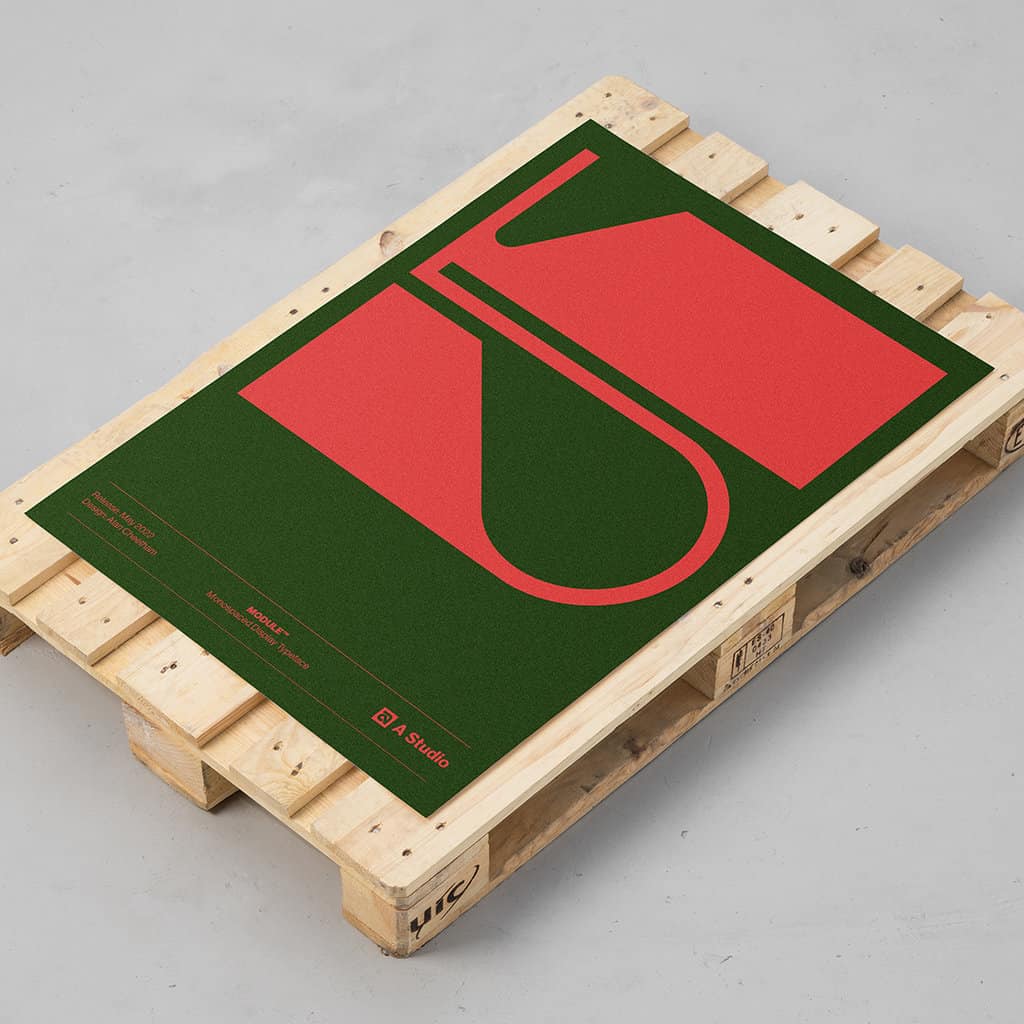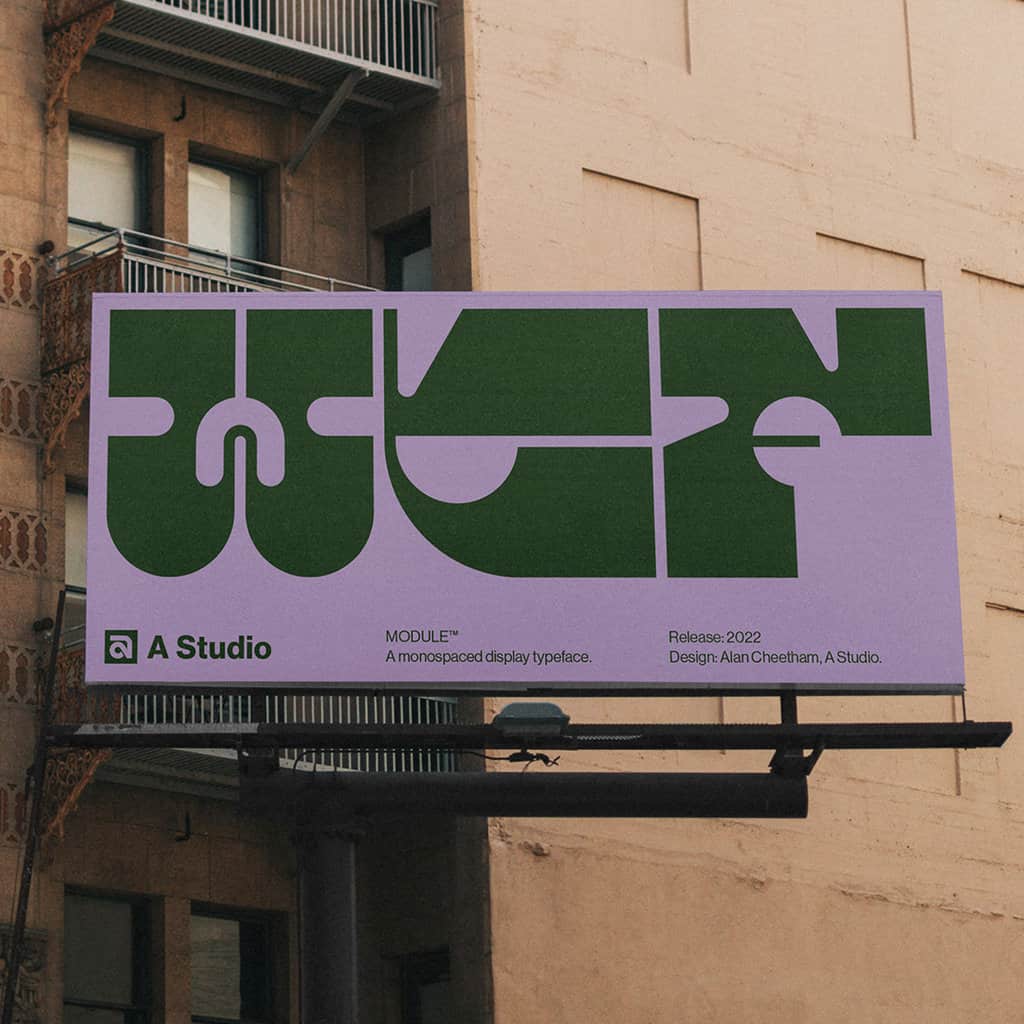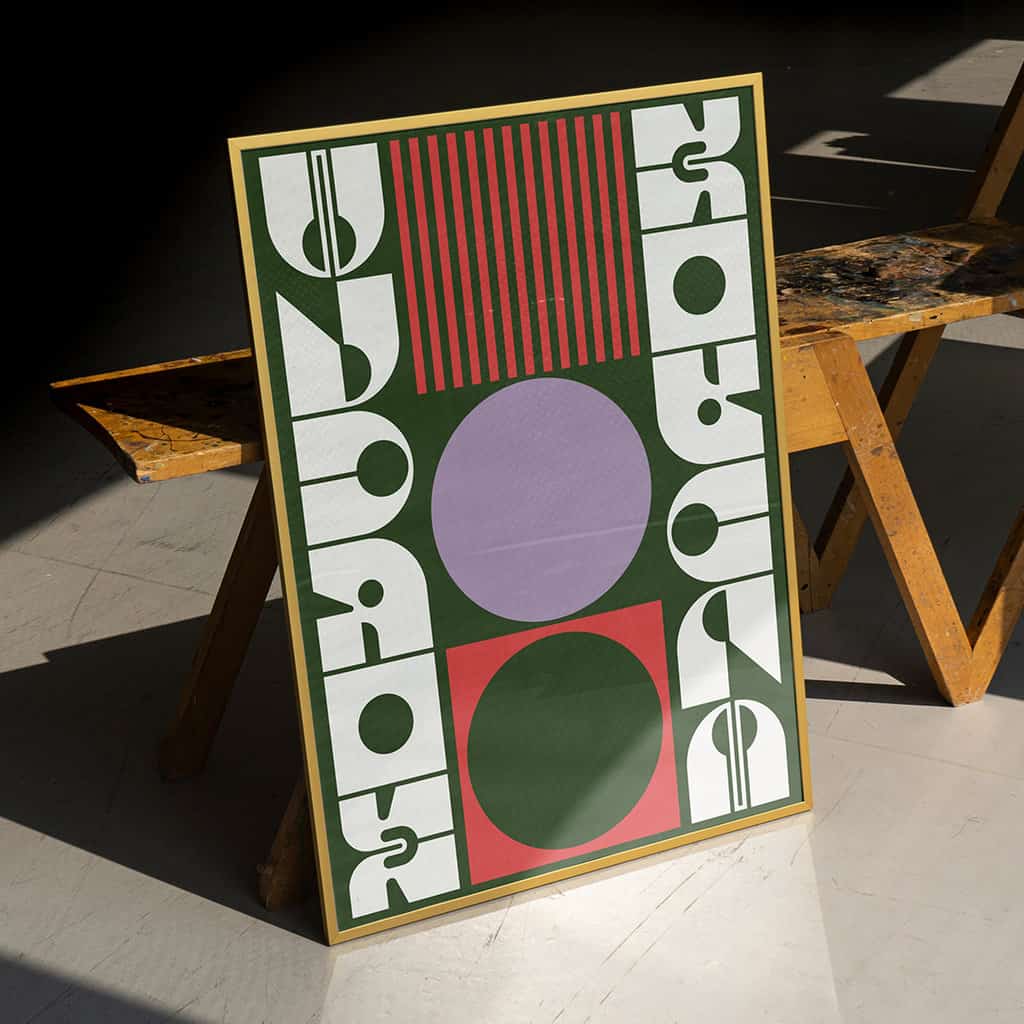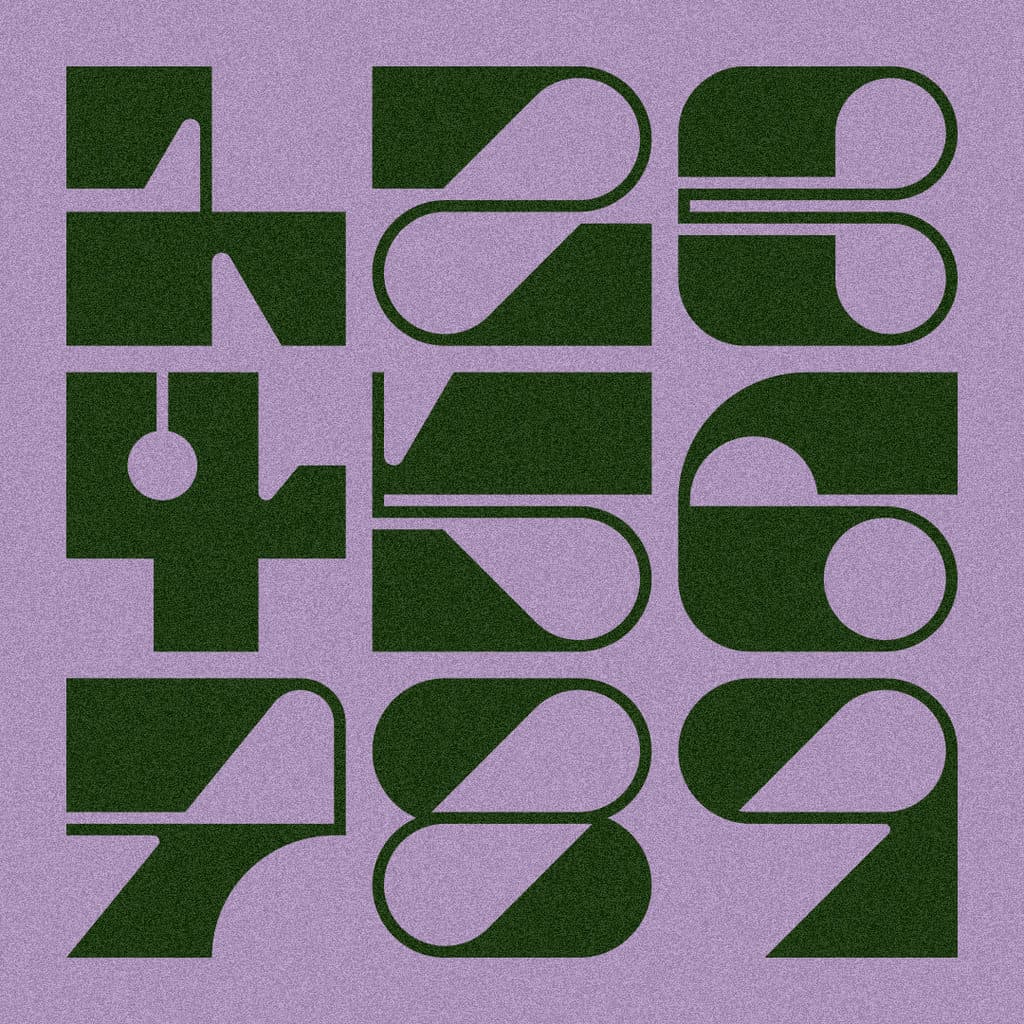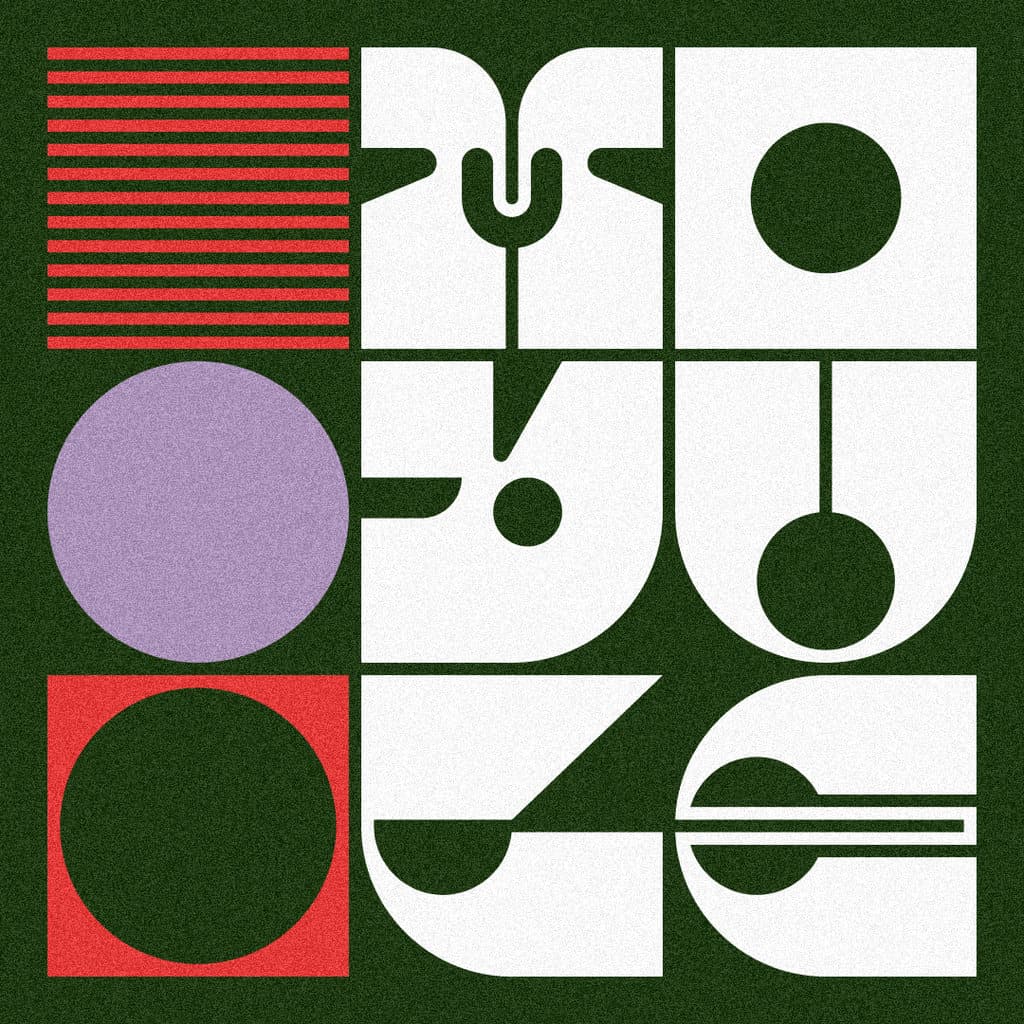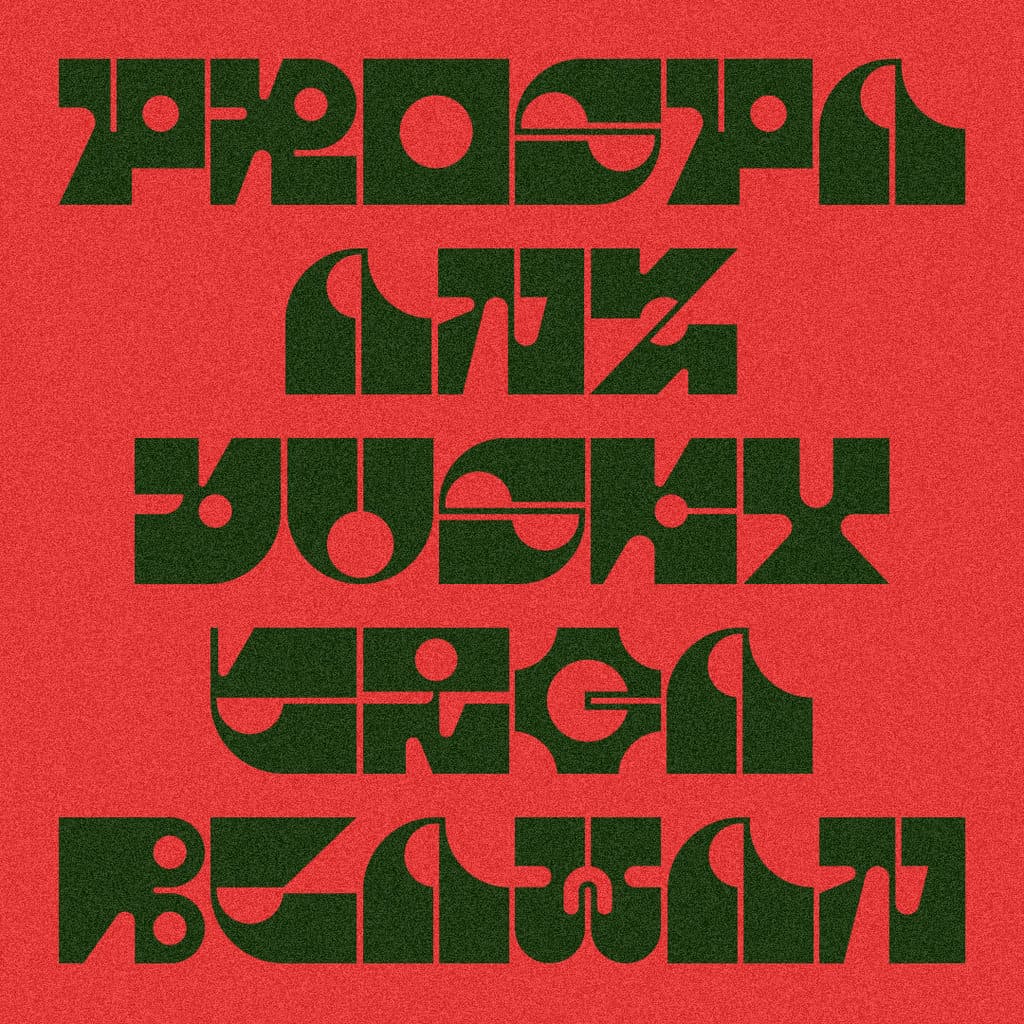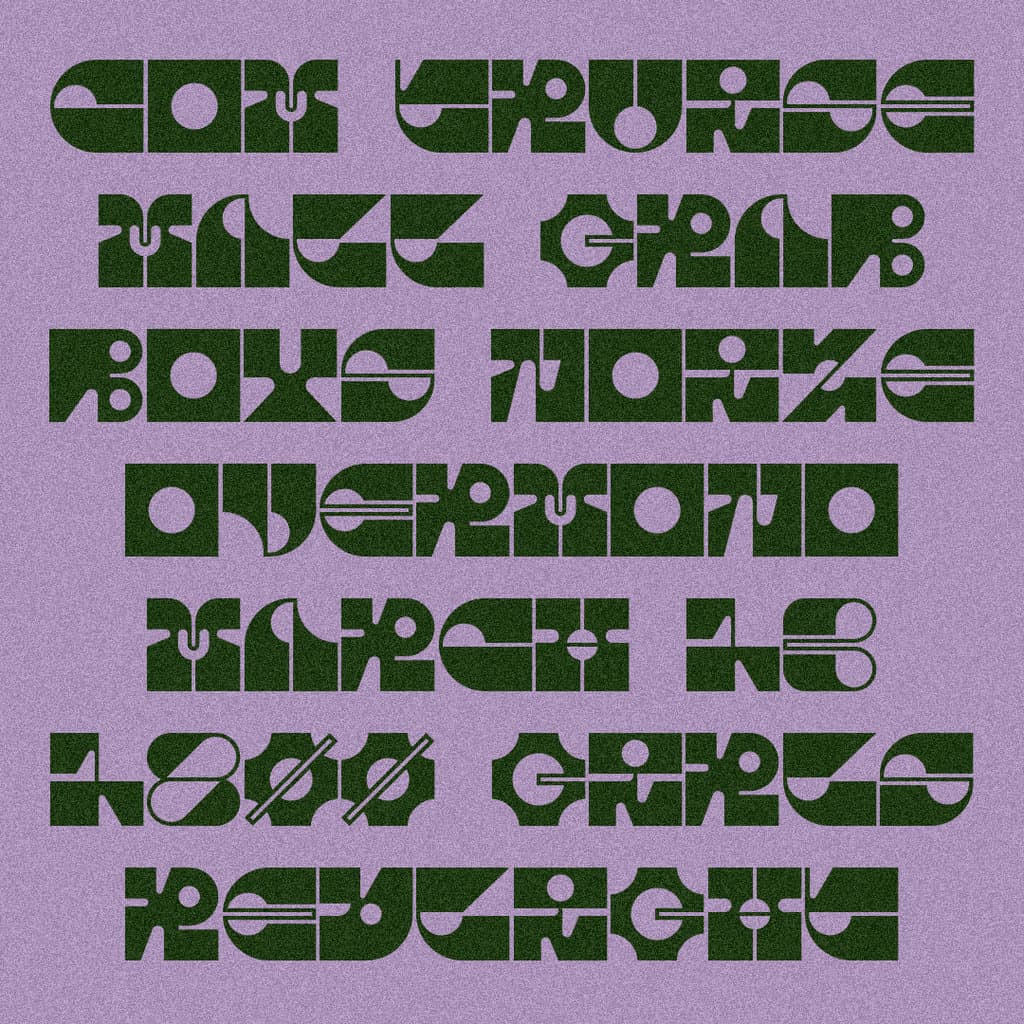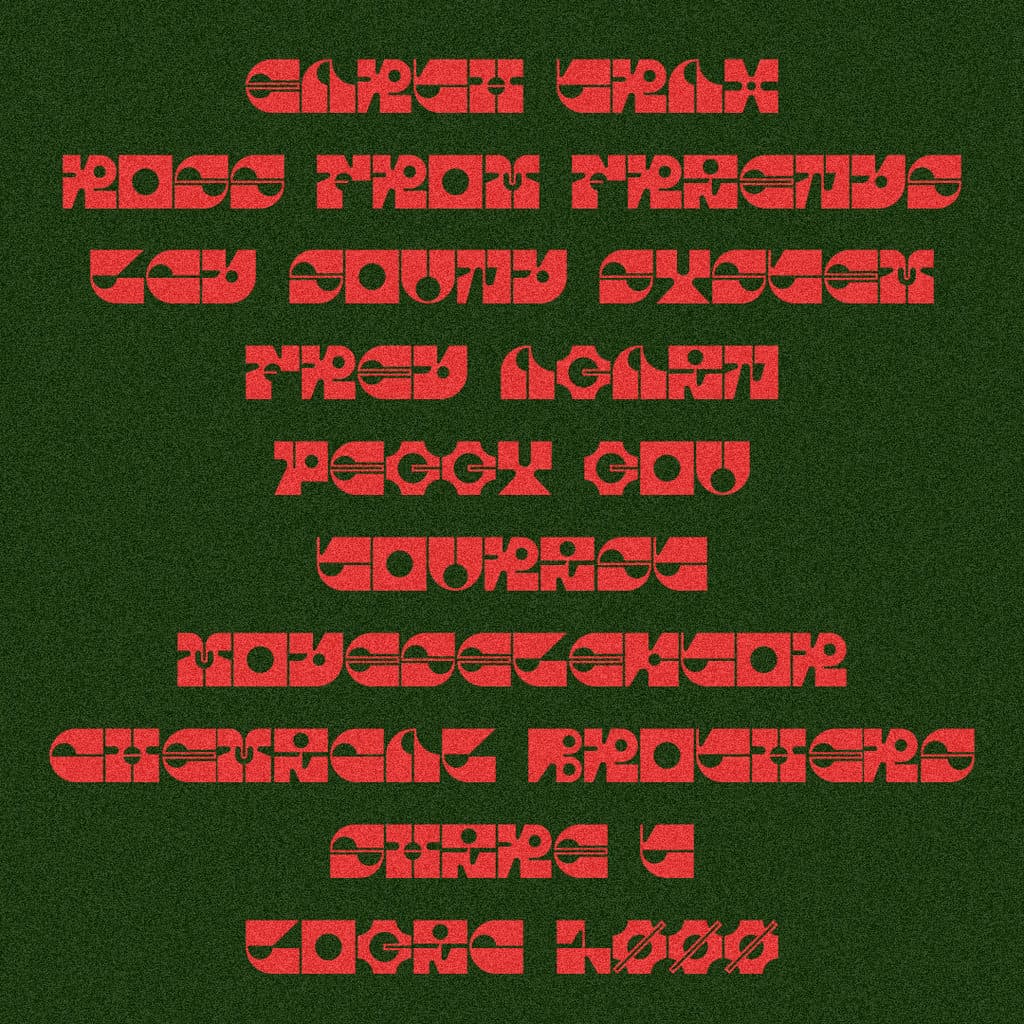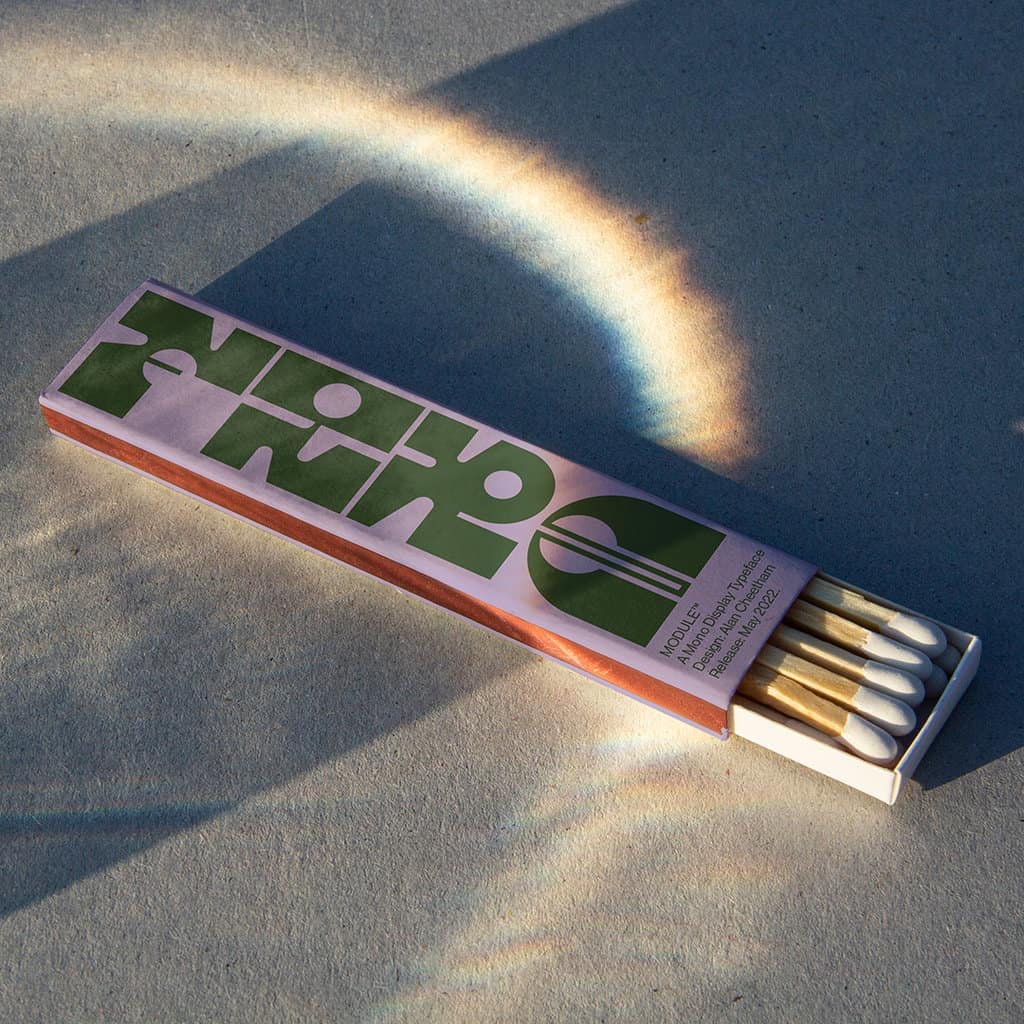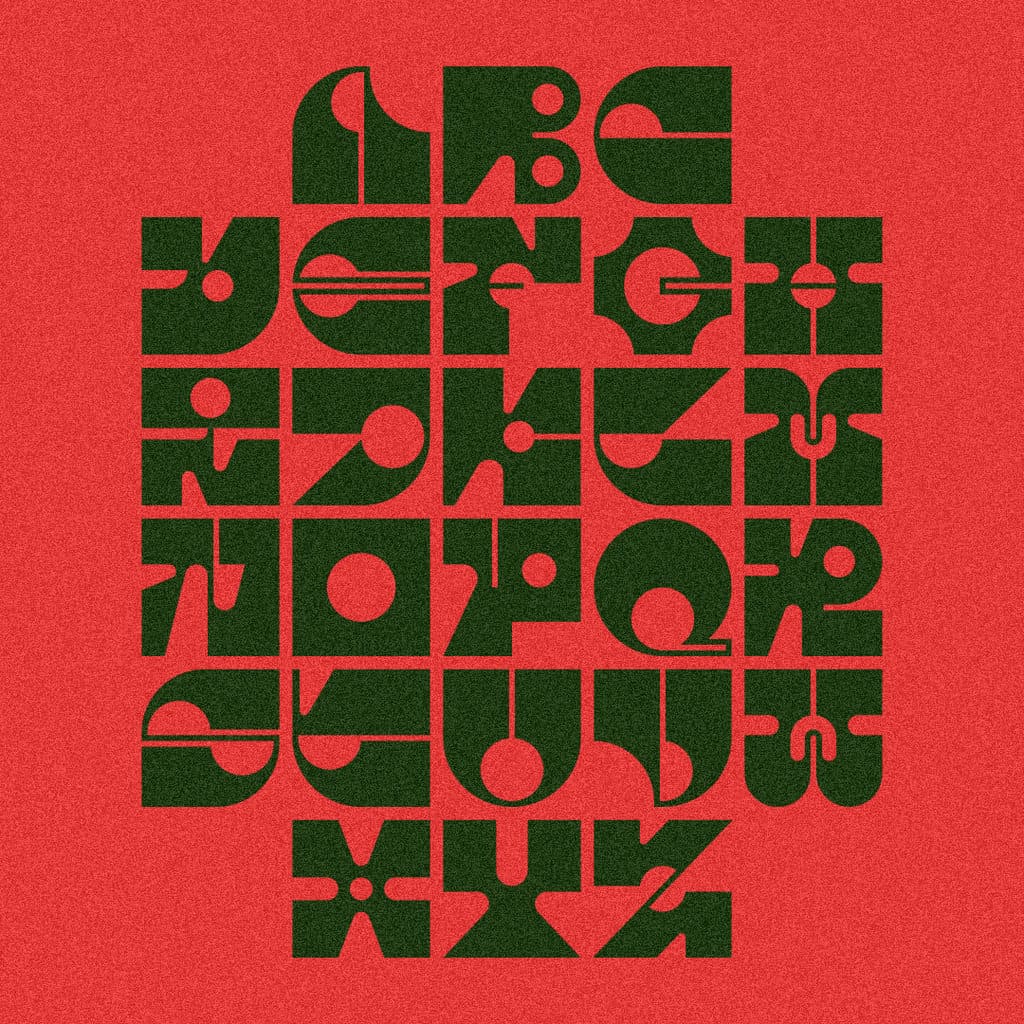
Module
MODULE is an uppercase display font that draws inspiration from the minimalist aesthetics of everyday geometric forms. Crafted on a precise uniform grid system, each character combines sharp edges, bold curves, and distinctive circular cuts to maximize visual impact both individually and as a cohesive whole.
Designed for versatility and standout visual presence, MODULE's monospaced nature ensures consistent character width, enhancing readability and uniformity across various applications.